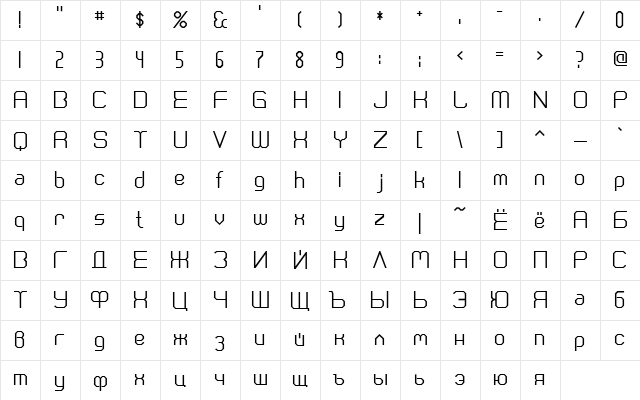
ft21 Regular Font Preview
ft21 Regular
ft21 Regular Font Details
Design Context for ft21 Typeface
ft21 offers clean, dependable letterforms without strong stylistic allegiance, making it a practical choice for designers who need flexibility.